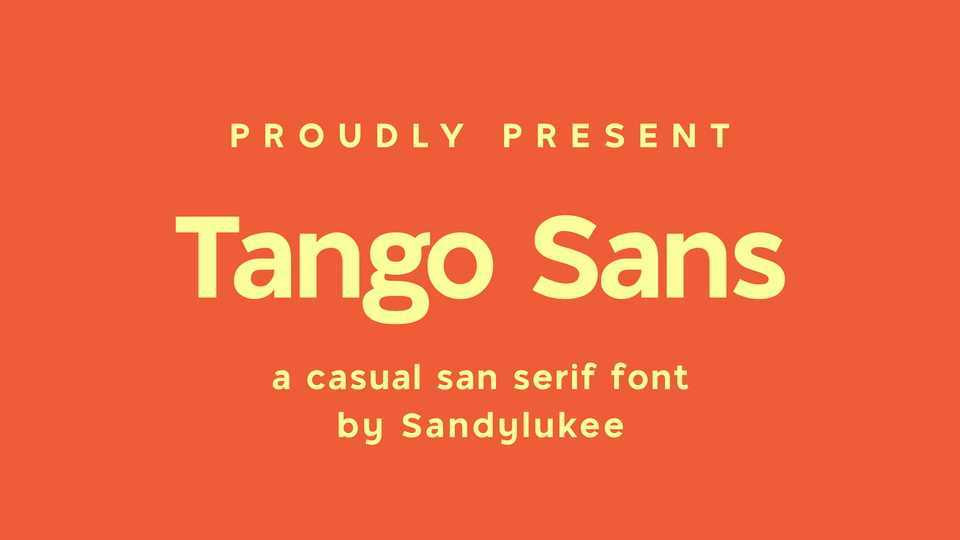
Download Tango Sans typeface, a casual sans serif font family with four styles that fit with any of your project. Tango Sans is great for title, text, logo, posters, banner etc.
Designer: Sandy Luke